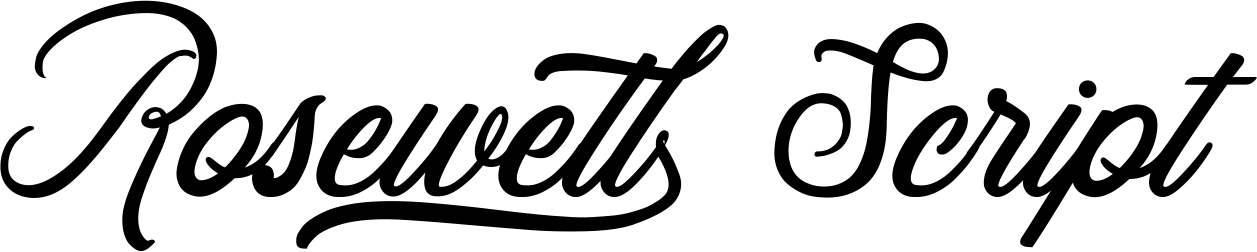
Rosewell Script Font
Rosewell Script lands in the luxury script font category as the name implies. It features cursive, elegant, and stylish characters which are full of feminine vibes. Rosewell Script comes without general punctuation. You…
Rosewell Script lands in the luxury script font category as the name implies. It features cursive, elegant, and stylish characters which are full of feminine vibes. Rosewell Script comes without general punctuation. You can use it in a variety of areas such as branding, logotypes, calligraphy, hand-lettering, invitations, and more!